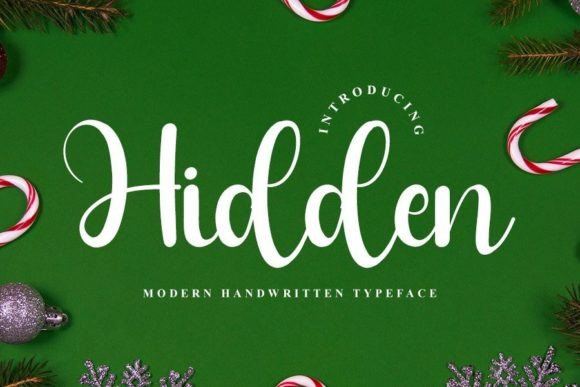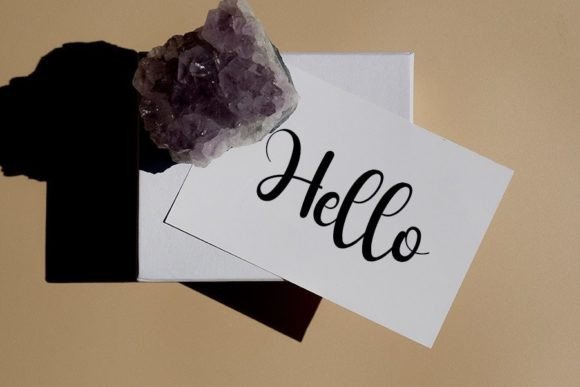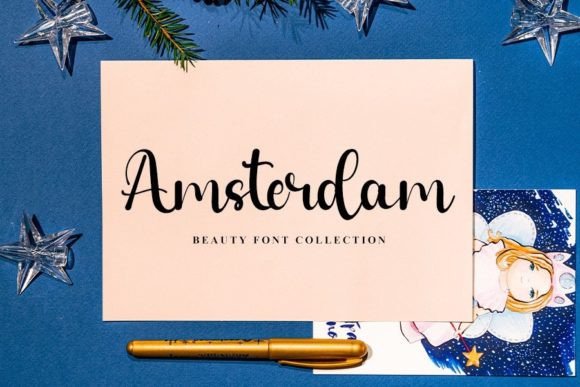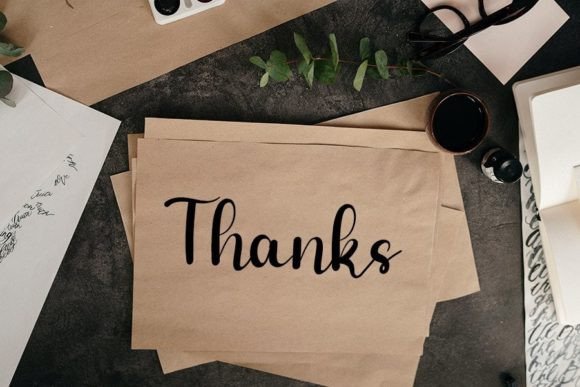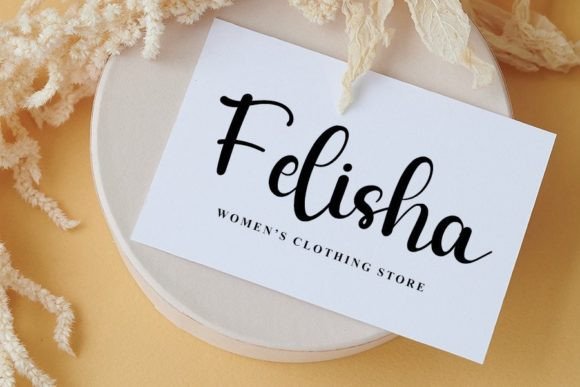
Hidden Font
About Hidden Font
“Hidden” is a neat and beautiful handwritten font distinguished by an elegant touch, making it an excellent choice for your favorite projects. The font’s distinct and timeless style sets it apart, encouraging you to appreciate its aesthetic and employ it to craft spectacular designs.
The neatness of “Hidden” imparts a sense of precision, rendering it well-suited for a variety of design applications. Whether you’re involved in branding, invitations, posters, or any creative project, this font introduces an element of elegance that elevates the overall visual impact.
The handwritten quality of “Hidden” adds a personal and human touch to your designs, enhancing relatability and engagement. Its timeless style ensures that it maintains relevance across different design trends and projects, contributing to a lasting and classic aesthetic.
Imagine “Hidden” enhancing the branding of a luxury product, where its elegant touch communicates sophistication. Picture it on invitations, where it introduces a timeless and stylish ambiance to the event. Envision it on posters, where its unique charm captures attention and leaves a lasting impression.
In summary, “Hidden” is more than just a font; it’s a design asset that harmonizes neatness, beauty, and elegance. Fall in love with its timeless style and let it be the key to creating spectacular and visually striking designs across a variety of creative projects.